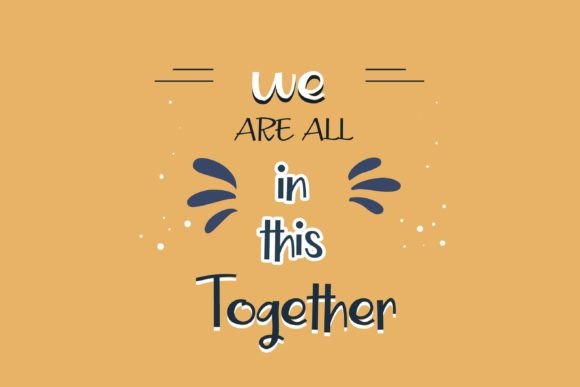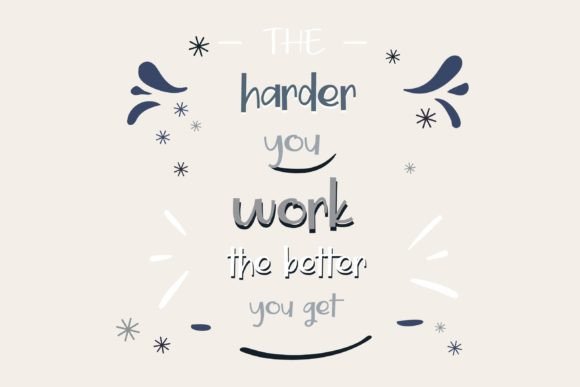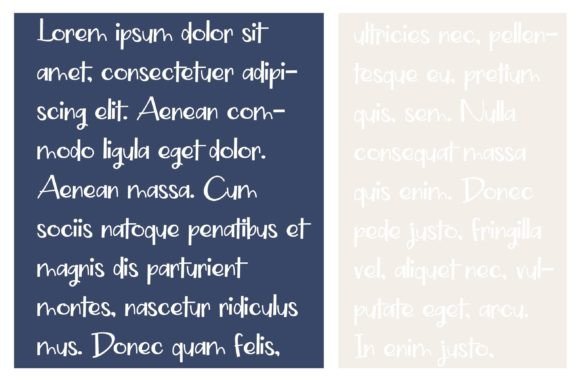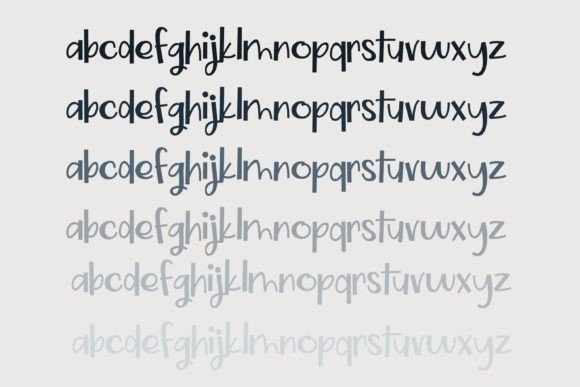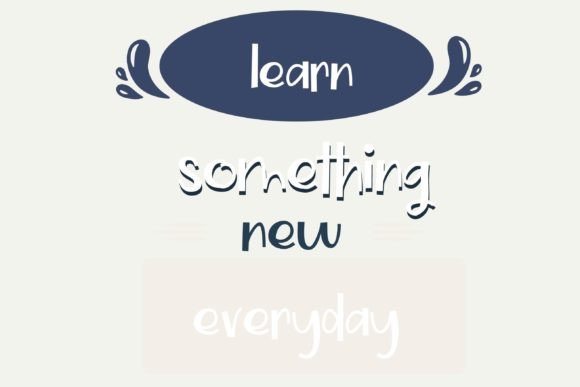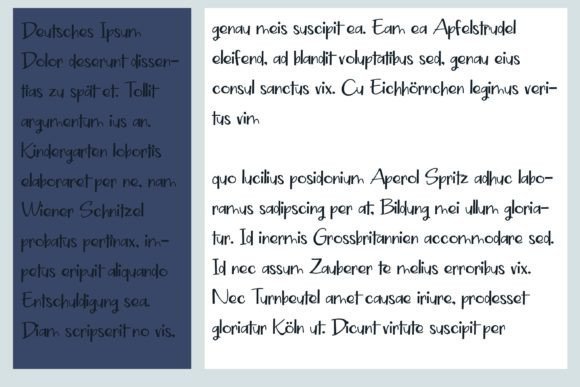
Dandification Font: Elevate Your Designs with a Touch of Elegance
Are you on the hunt for a font that exudes a sense of style, sophistication, and playfulness? Look no further than the Dandification Font! This casual, hand-written script is perfect for designers and crafters who want to add a personal touch to their projects. With its easy-going look and feel, Dandification Font is ideal for a wide range of applications, from wedding invitations to business cards.
The Characteristics of Dandification Font
This beautiful font boasts a natural, stylish aesthetic that’s perfect for projects that require a handwritten feel. Its versatile style makes it an excellent choice for a variety of design applications, including:
- Quotes and inspirational posters
What Makes Dandification Font So Special?
So, what sets Dandification Font apart from other fonts on the market? Here are just a few reasons why designers and crafters love this font:
- Unique and eye-catching: Dandification Font has a distinctive, hand-written look that’s sure to grab attention.
- Versatile: This font can be used for a wide range of projects, from formal events to casual designs.
- Elegant and sophisticated: Despite its casual feel, Dandification Font exudes a sense of style and sophistication.
- Easy to read: The font’s clear, flowing script makes it easy to read, even at smaller sizes.
Tips for Using Dandification Font
To get the most out of Dandification Font, here are a few tips to keep in mind:
- Pair it with contrasting fonts: Combine Dandification Font with a clean, sans-serif font to create visual interest.
- Experiment with colors: Try pairing the font with different colors and textures to add depth and dimension.
- Use it sparingly: While Dandification Font is beautiful, it can be overwhelming if overused. Use it as an accent font to add a touch of elegance.
Who Can Benefit from Dandification Font?
Dandification Font is perfect for a wide range of designers and crafters, including:
- Wedding planners and stationery designers: Add a touch of elegance to wedding invitations and stationery.
- Graphic designers: Use Dandification Font to create unique and eye-catching logos, business cards, and branding materials.
- Crafters and DIY enthusiasts: Add a personal touch to handmade cards, gift tags, and other crafts.
- Social media influencers and bloggers: Use Dandification Font to create beautiful and engaging social media graphics.
In conclusion, Dandification Font is a beautiful and versatile font that’s perfect for designers and crafters who want to add a touch of elegance to their projects. With its unique, hand-written look and feel, this font is sure to elevate your designs and set them apart from the crowd. So why wait? Download Dandification Font today and start creating stunning designs that showcase your creativity and style!